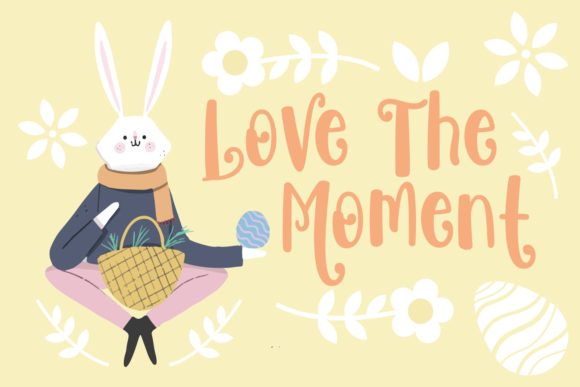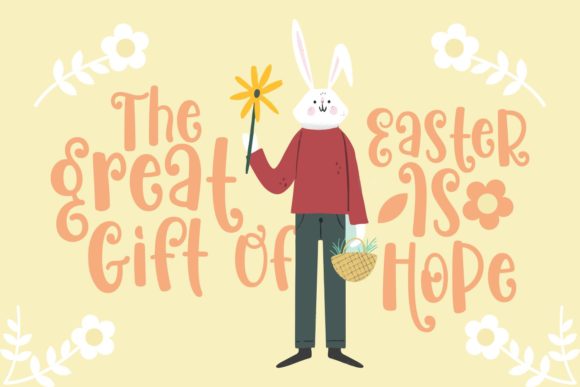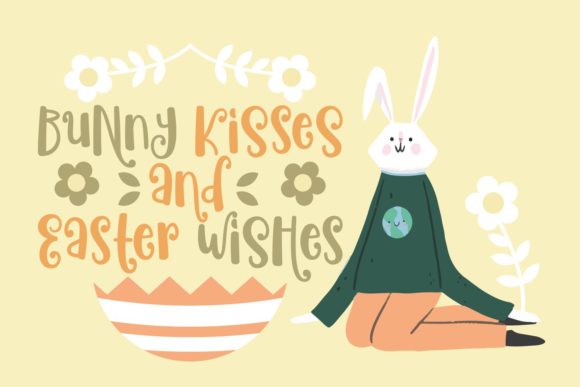
Introduction to Qeastera Cute Font
Have you ever found yourself sitting at your desk, staring blankly at a blank page, desperate for the perfect font to bring your creative project to life? We’ve all been there. And then, suddenly, it hits you – a burst of inspiration that sets your imagination racing and your fingers flying across the keyboard. For many designers, this moment is a game-changer, and the right font can be the key to unlocking it.
Enter Qeastera Cute Font, a delightfully quirky and charming display font that’s sure to add a touch of whimsy to any design. With its high-quality, transparent background and adorable characters, this font is a must-have for any designer looking to add a little extra magic to their creative projects. And the best part? It’s available for free download, making it an invaluable resource for designers of all levels.
Whether you’re working on a children’s game, a cartoon-inspired design, or simply need a font that exudes a sense of playfulness and fun, Qeastera Cute Font is an amazing choice. Its unique charm and character make it a standout design resource that’s sure to elevate any project to new heights.
Key Features of Qeastera Cute Font
- High-quality design for a creative project, perfect for digital artists and designers.
- The Qeastera Cute Font features a unique, playful style with a range of characters and glyphs.
- Includes a wide range of characters, including uppercase and lowercase letters, numbers, and punctuation marks.
Honest Review: Qeastera Cute Font
As a designer, I’m always on the lookout for high-quality design resources that can help me elevate my creative projects. Recently, I had the chance to try out the Qeastera Cute Font, and I’m excited to share my honest review with you.
- ✨ The font is super cute and playful, making it perfect for children’s books, party invitations, or any other project that needs a touch of whimsy.
- ✨ The font is highly customizable, allowing you to adjust the size, color, and transparency of the text to fit your design needs.
- ⚠️ The font doesn’t support transparent backgrounds, which can be a bit restrictive for designers who need to create designs with complex backgrounds.
- ⚠️ The font library is relatively small, so you may not have as many options as you would with other fonts.
Overall, I was impressed with the Qeastera Cute Font, and I think it’s a great addition to any designer’s toolkit. While it may have a few limitations, its high quality and playfulness make it a great choice for creative projects. Just be sure to check the font’s compatibility with your design software before downloading.
Tips for Getting the Most Out of Qeastera Cute Font
To get the most out of the Qeastera Cute Font, use it in combination with other design elements, such as images and graphics. You can also experiment with different font sizes and styles to create a unique and eye-catching design. Additionally, consider using a transparent background to make your design stand out.
The Qeastera Cute Font is perfect for a variety of creative projects, including invitations, social media graphics, and branding materials. You can also use the font for personal projects, such as designing a website or creating a logo.